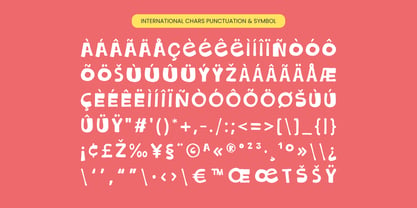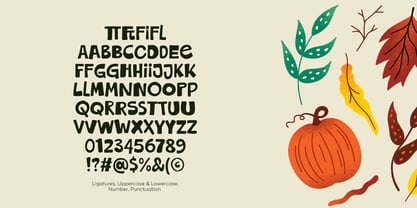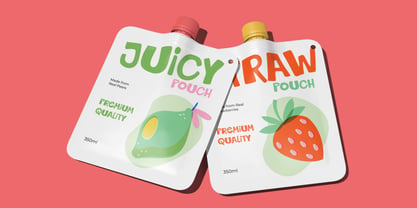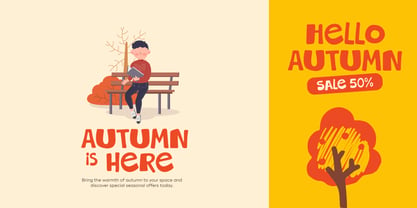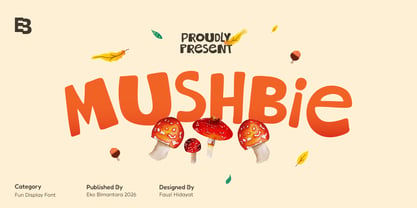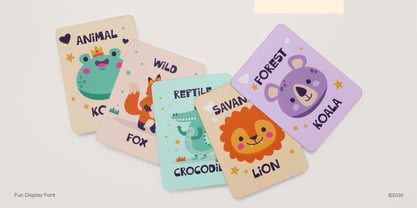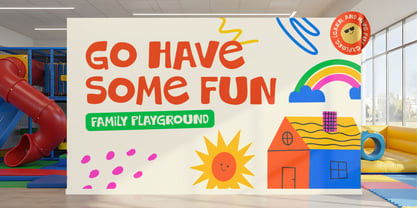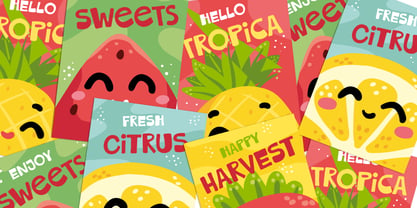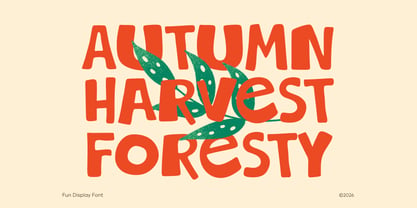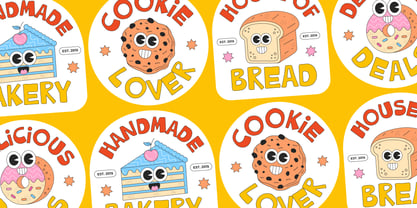
Mushbie
by Eko Bimantara
The Mushbie Font Family was designed by Eko Bimantara, Fauzi HIdayat and published by Eko Bimantara. Mushbie contains 1 styles. More about this family
Mushbie is a playful and expressive display typeface inspired by the whimsical charm and the organic forms of nature . Featuring bold, rounded shapes, soft curves, and a lively personality, it brings a sense of warmth, friendliness, and creativity to any design. Its slightly irregular letterforms add a handcrafted feel while maintaining strong visual impact and readability, making it ideal for children’s designs, packaging, branding, posters, and seasonal or nature-themed projects. Mushbie effortlessly combines fun and character with professional versatility, making it a standout choice for designers seeking a joyful and memorable typographic voice.
Designers: Eko Bimantara, Fauzi HIdayat
Foundry: Eko Bimantara